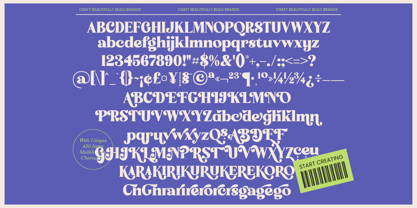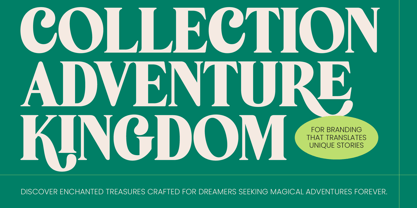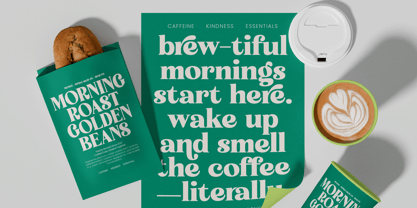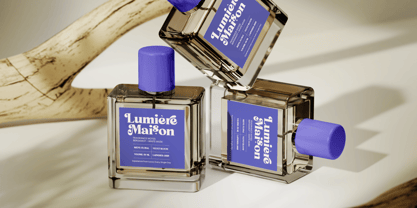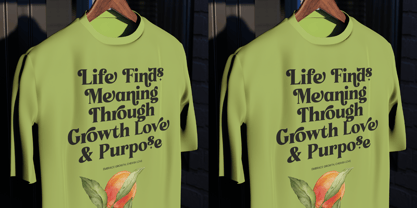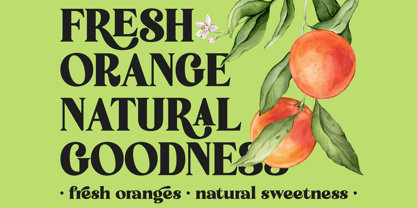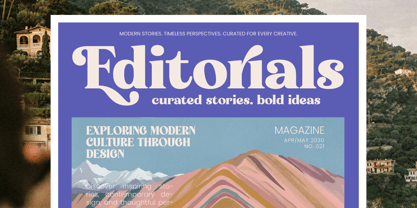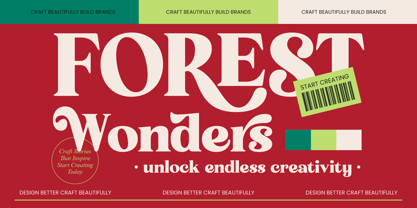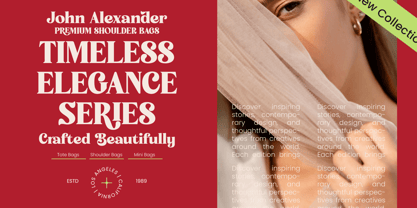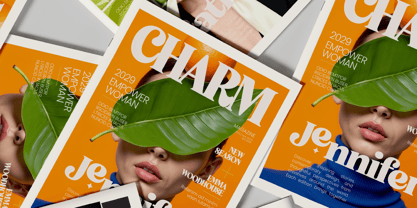
Forest Wonders
by Timelesstype Studio
The Forest Wonders Font Family was designed by Heru Utama Putra and published by Timelesstype Studio. Forest Wonders contains 2 styles and family package options. More about this family
Elevate your creative vision with a typeface that bridges the gap between classic elegance and contemporary flair. Forest Wonders - New Collection Serif is a masterpiece of high-contrast typography, characterized by its sophisticated serifs and organic curves that command attention. This premium font offers a unique aesthetic essence that balances professional authority with a touch of whimsical charm, making it an essential addition to any designer's toolkit.